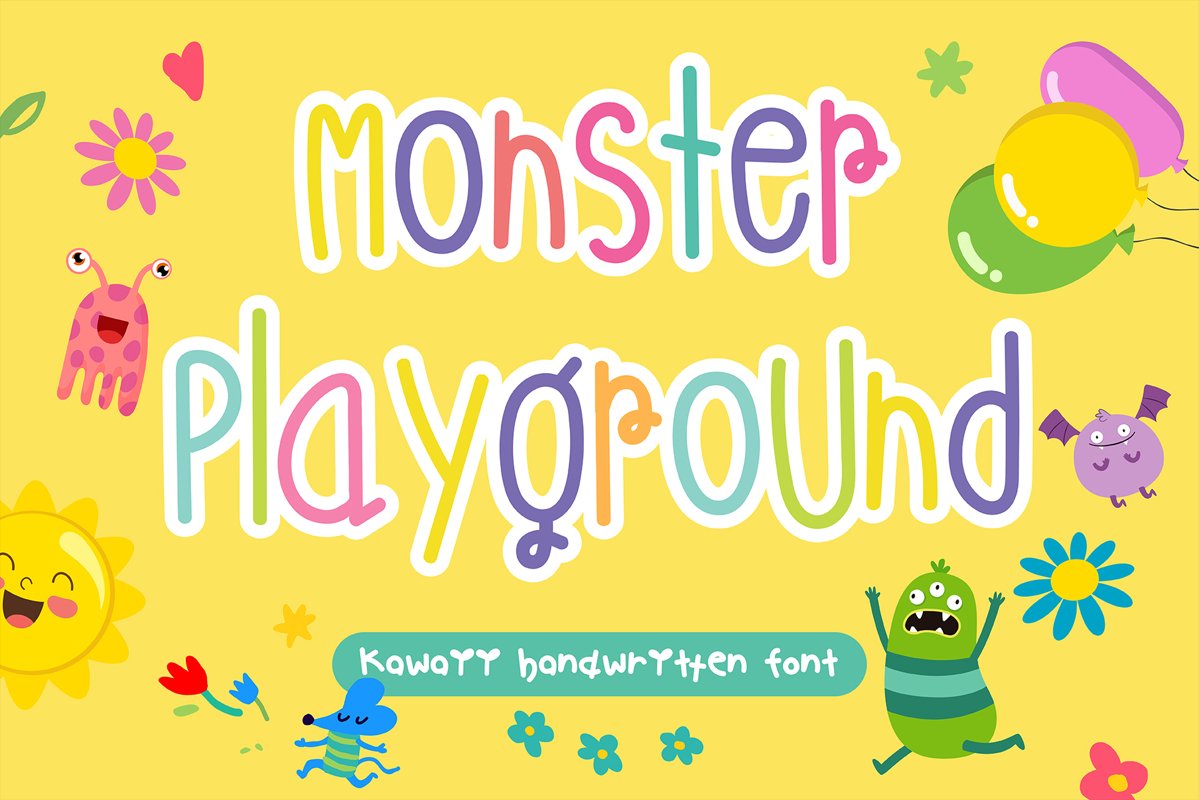
Monster Playground Handwritten- cute kid font Kawaii style!
Monster Playground Handwritten- cute kid
font Kawaii style!
Handwritten ,I love drawing in
Kawaii Style. Hope you enjoy it! Have a nice day.
Monster Playground Baby Font-
Handwritten Kawaii style.
Are you looking for cute Handwritten
font for your project? Then you have come the right land!!
This Font is perfect for kid greeting
card, Print t shirt, fashion artworks or just play around.
Festival like Valentine's Day, Kid's Party,
wedding!!